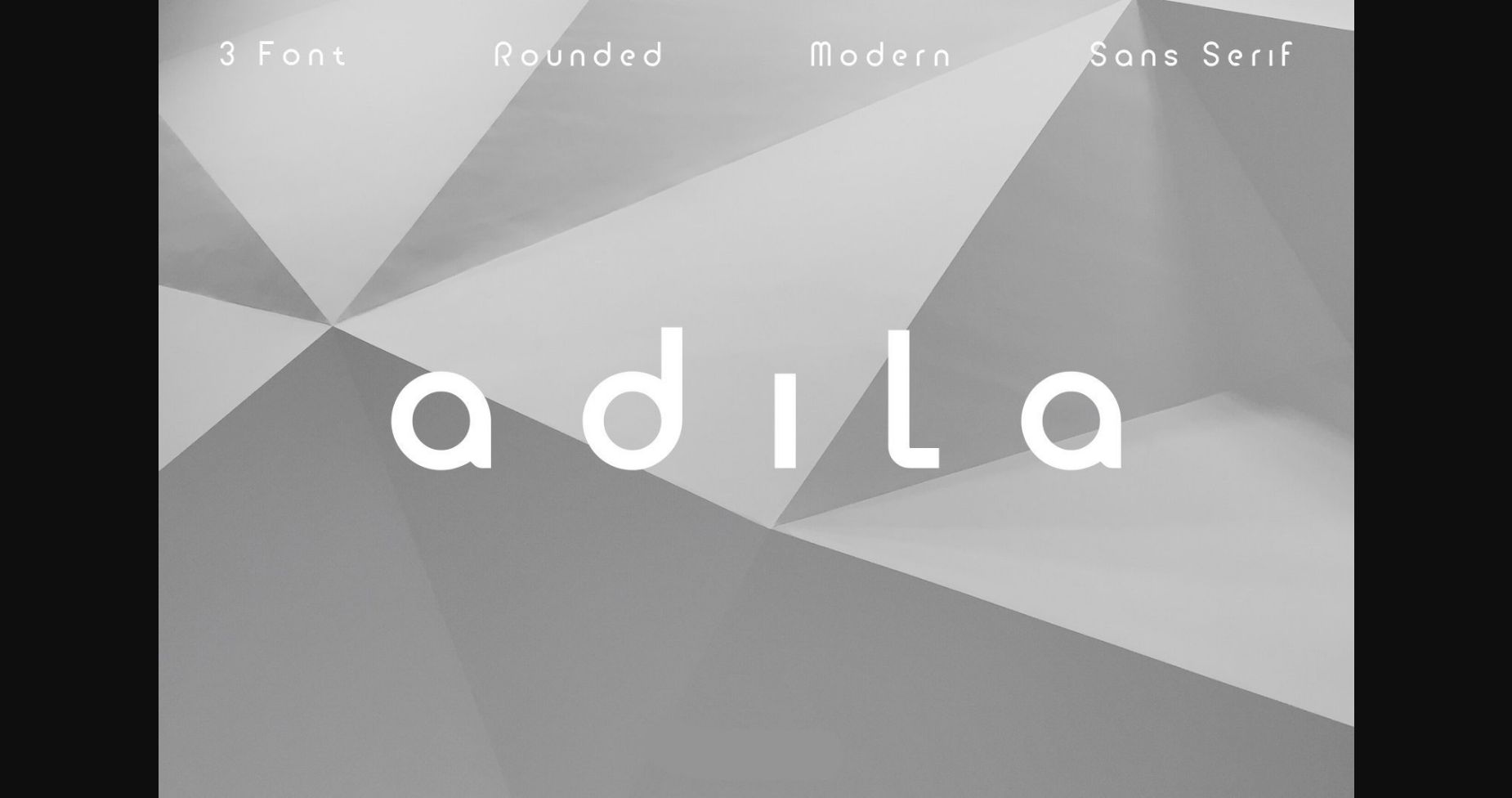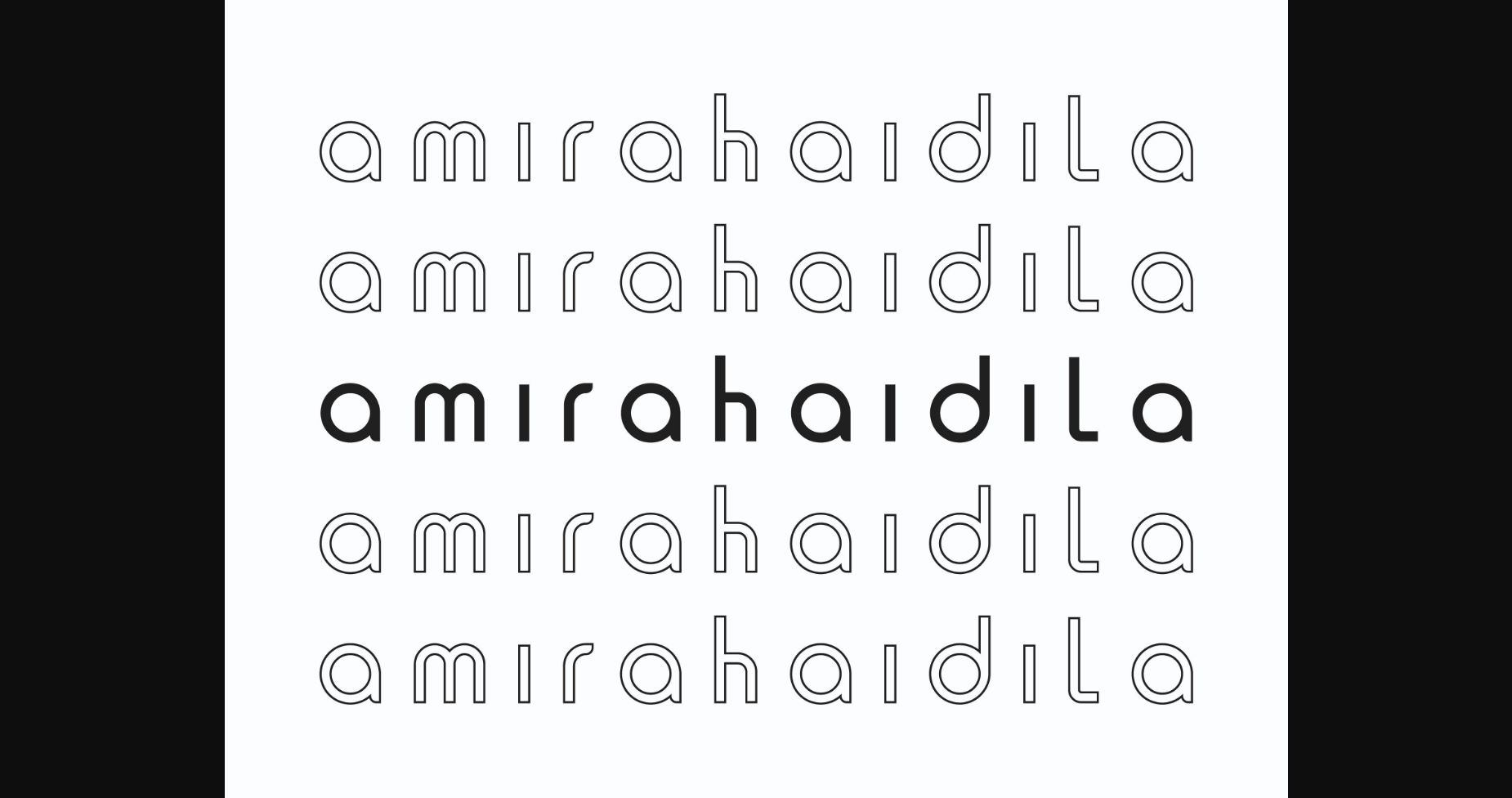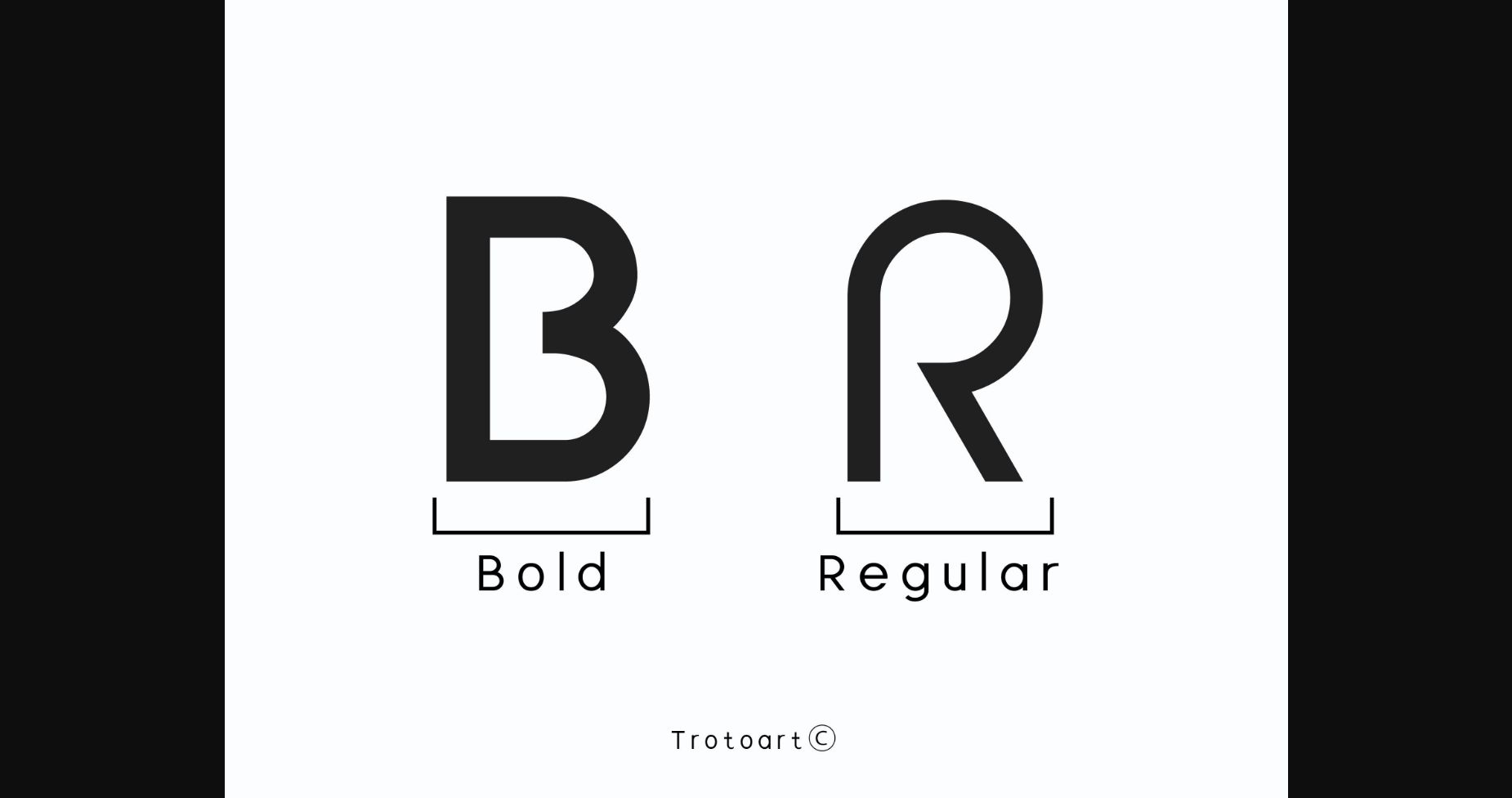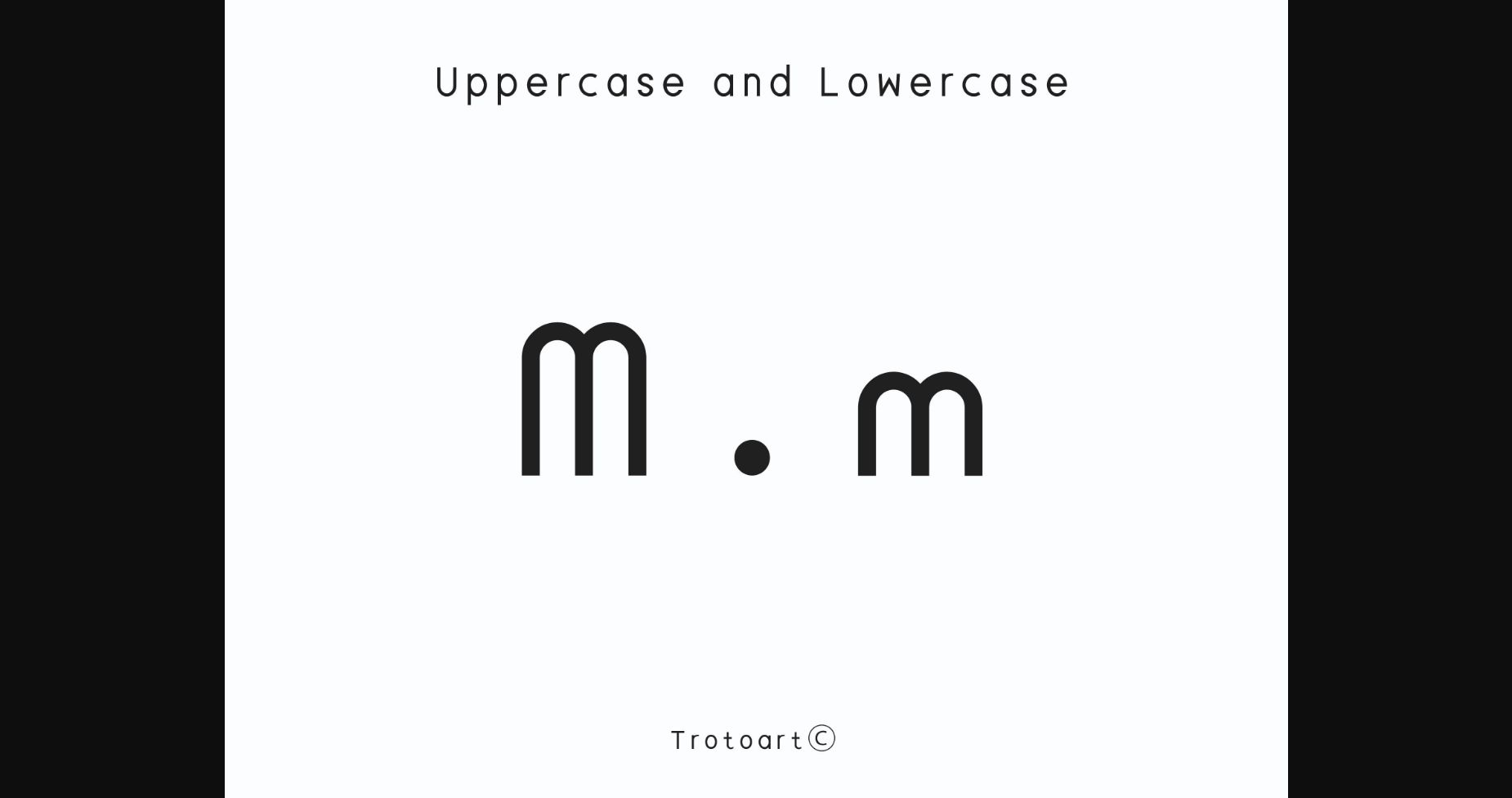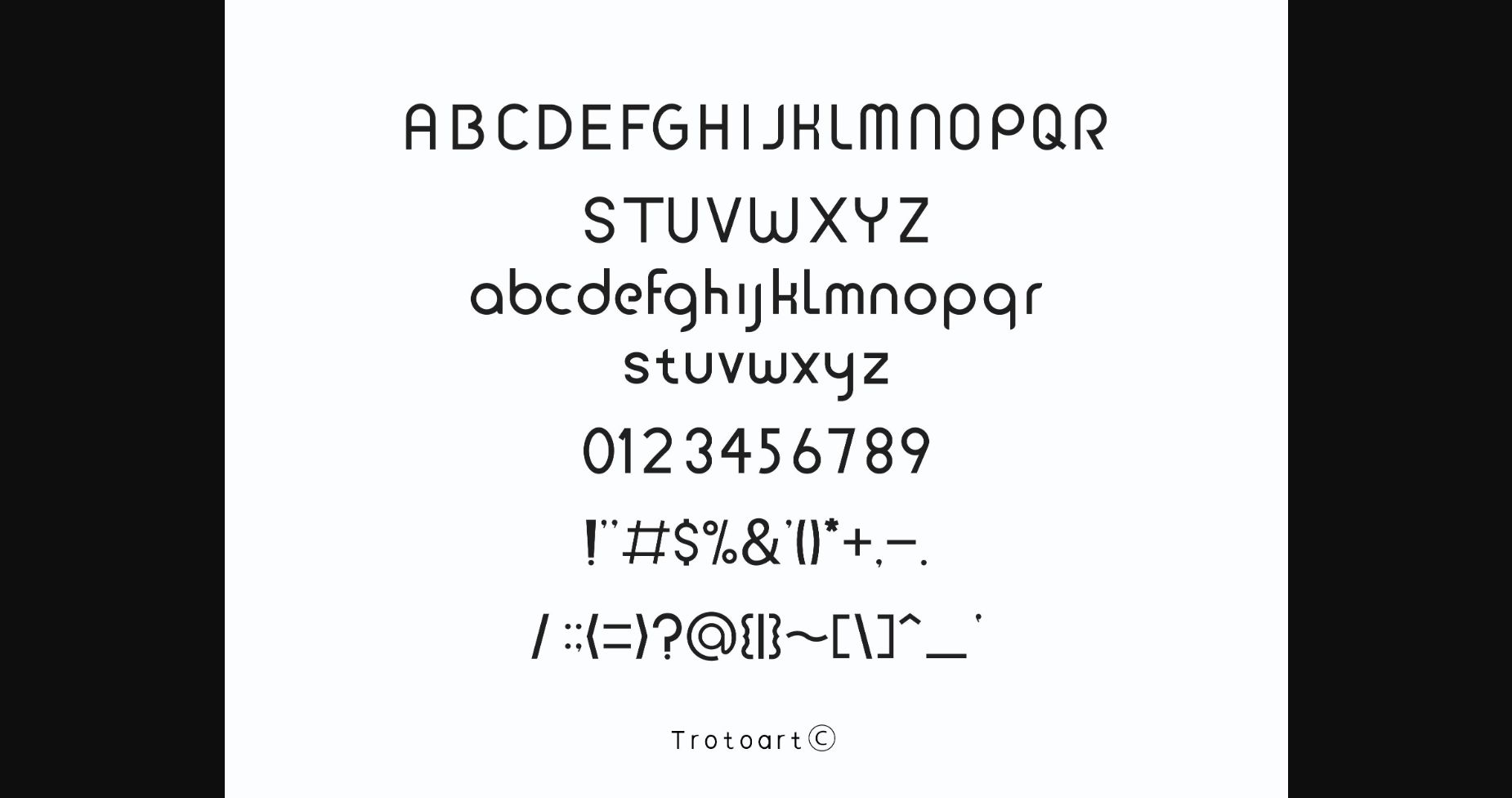
Adila Font
About Adila Font
Adila is a clean and modern sans serif font. Its casual charm makes it appear wonderfully down-to-earth, readable, and, ultimately, incredibly versatile. This will look outstanding in any context, whether it’s being used on busy backgrounds or as a standalone headline!